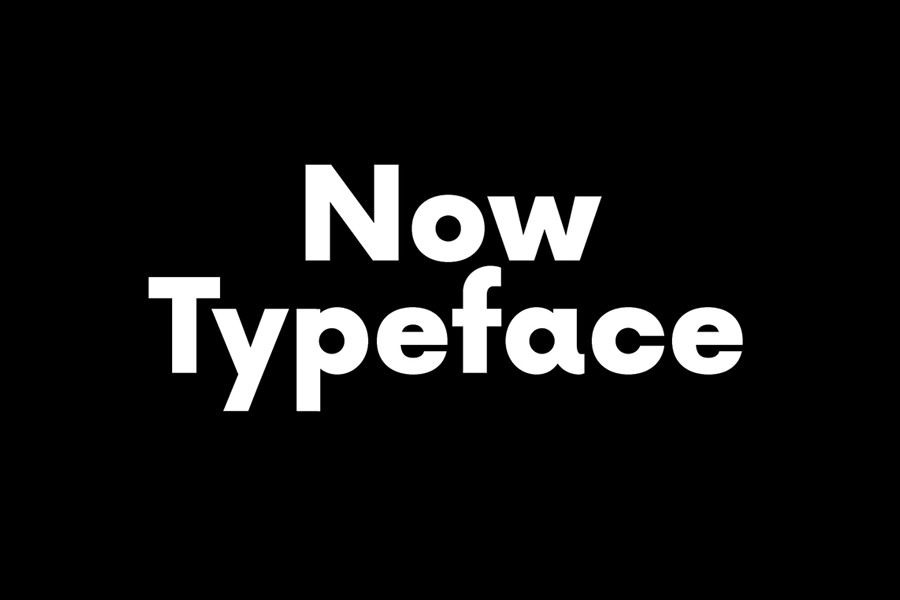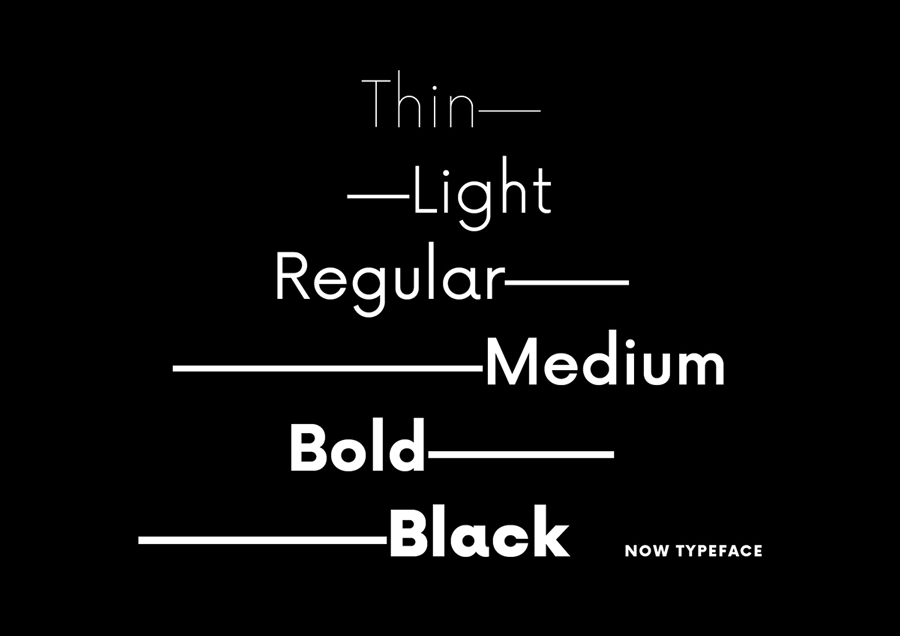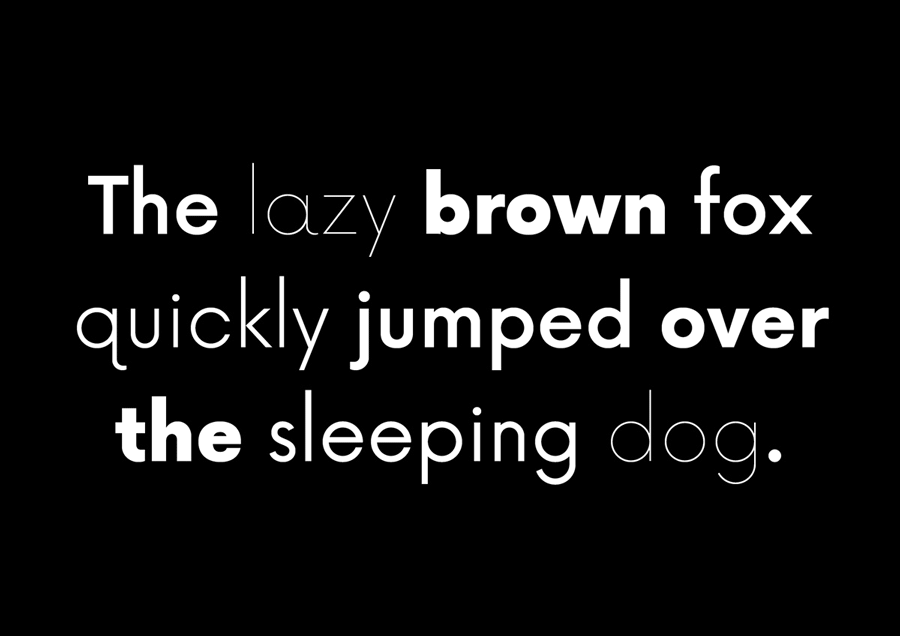
Now Typeface is a free sans serif font that is geometrical, low contrasty with a bit of character. It comes with 6 weights, from thin to black and it works great for both headline and body text. Now is an open source font so you can use it for both personal and commercial works.
- Designer: Alfredo Marco Pradil
- Styles: 6
- Category: Sans Serif